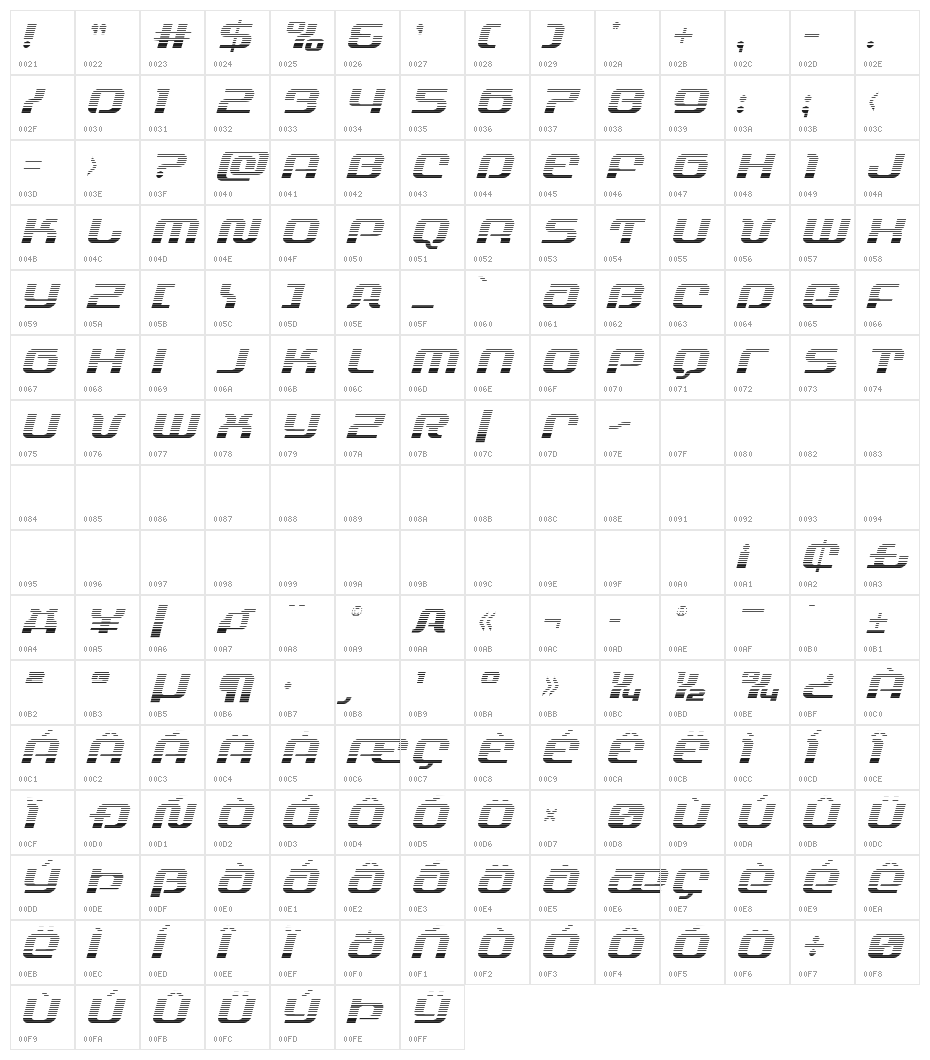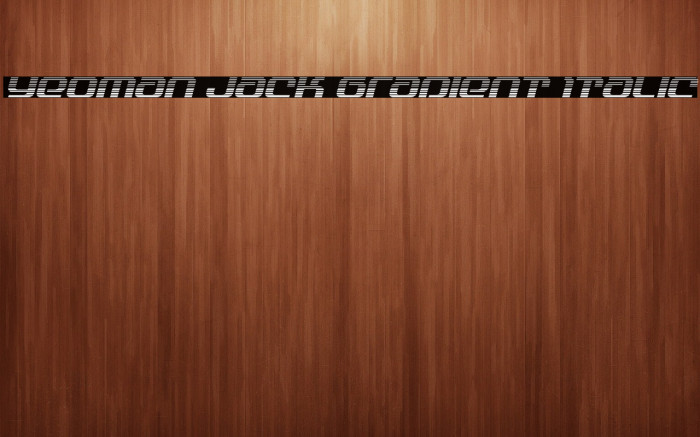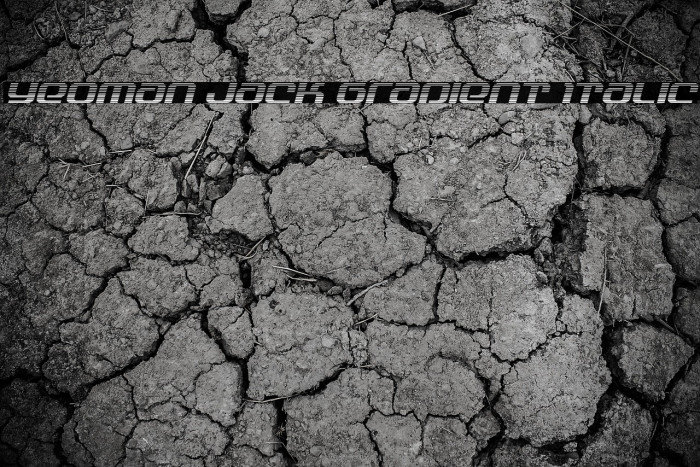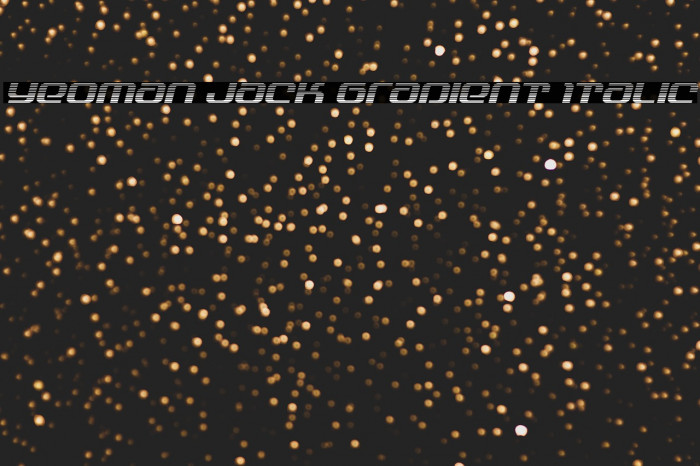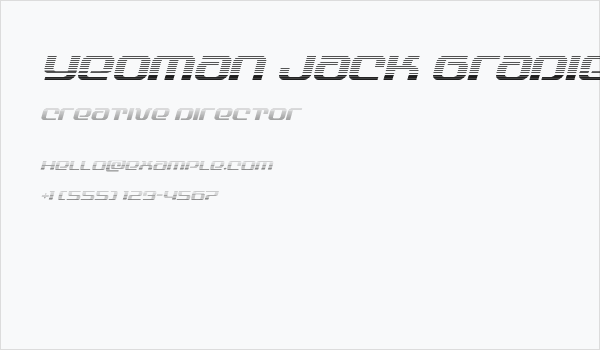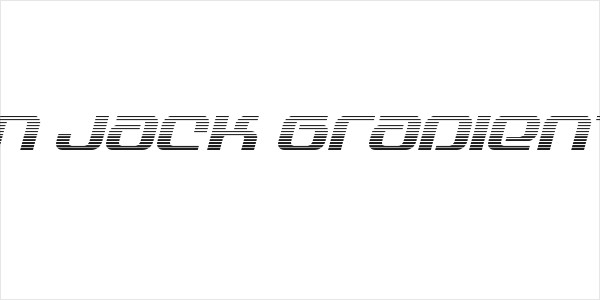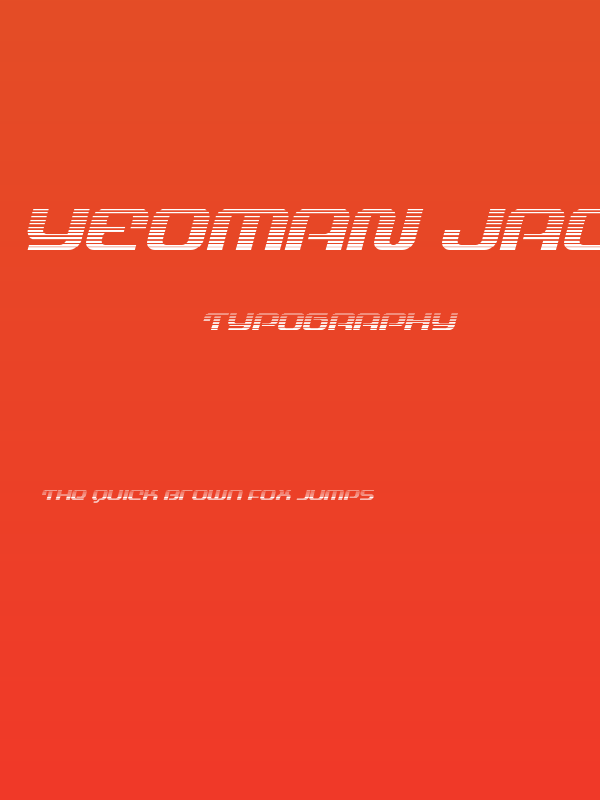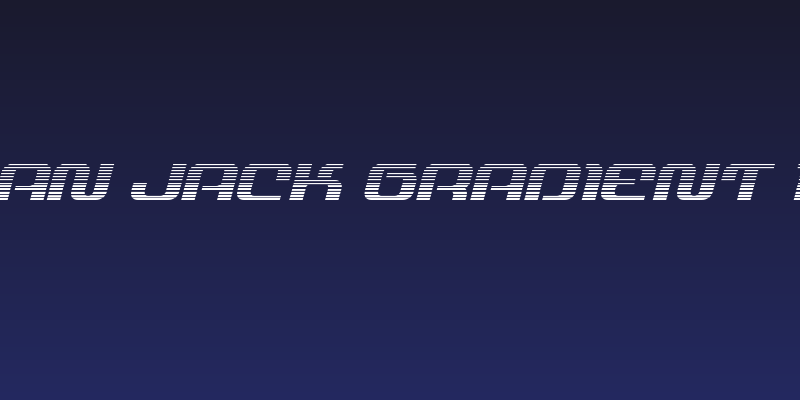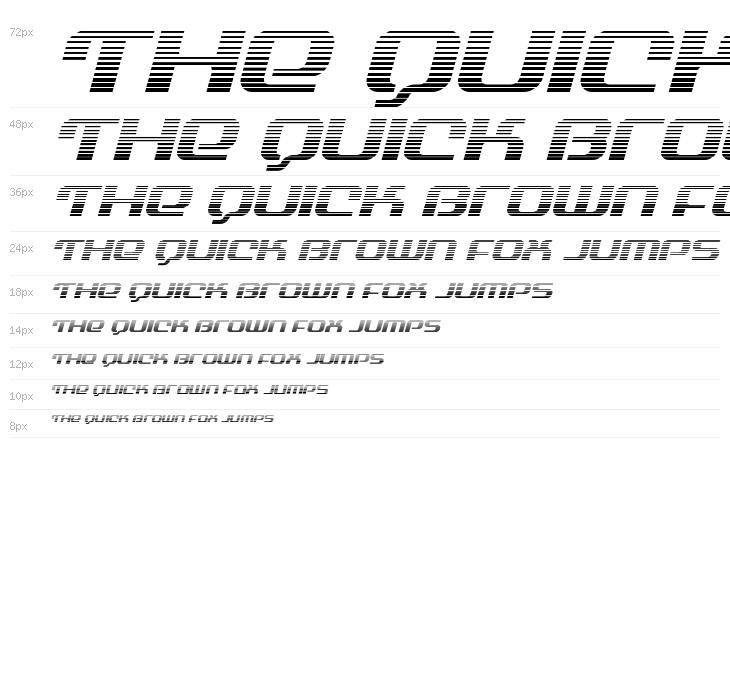
Yeoman Jack Gradient Italic Font
Yeoman Jack Gradient Italic Description
This font features a dynamic and modern design with a distinct gradient effect that gives it a sense of movement and energy. The italic style adds a sleek, forward-leaning appearance, enhancing its contemporary feel. Each character is composed of horizontal lines that create a striped pattern, contributing to its unique visual appeal. The font maintains a consistent structure across uppercase, lowercase, numbers, and special characters, ensuring versatility in various design contexts. Its bold and striking appearance makes it suitable for projects that require a strong visual impact.
| Proposed Projects | Ideal for futuristic branding, sports team logos, tech event posters, and dynamic web design. |